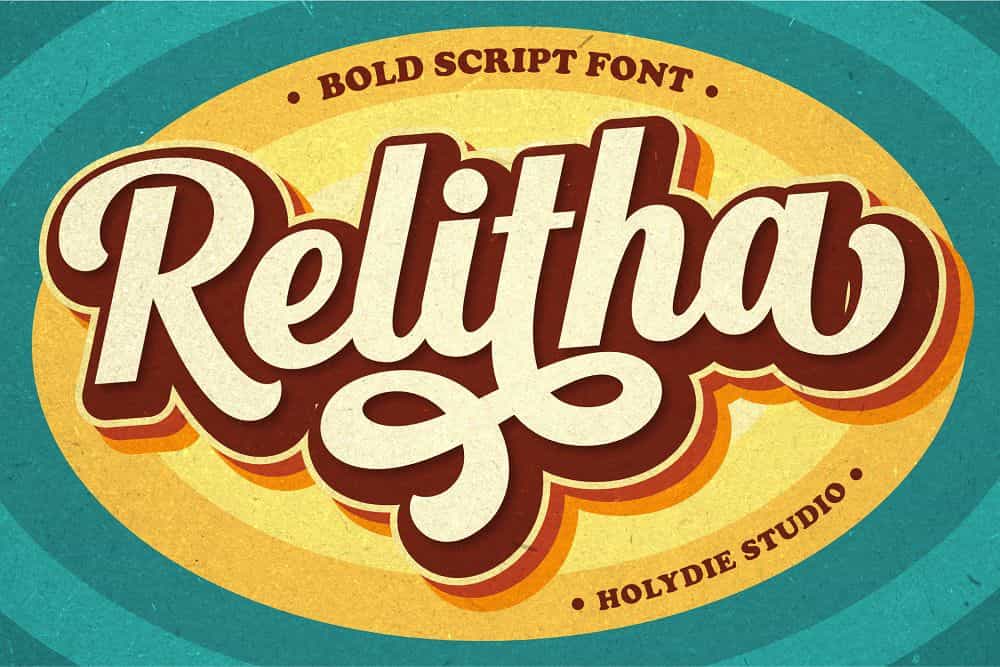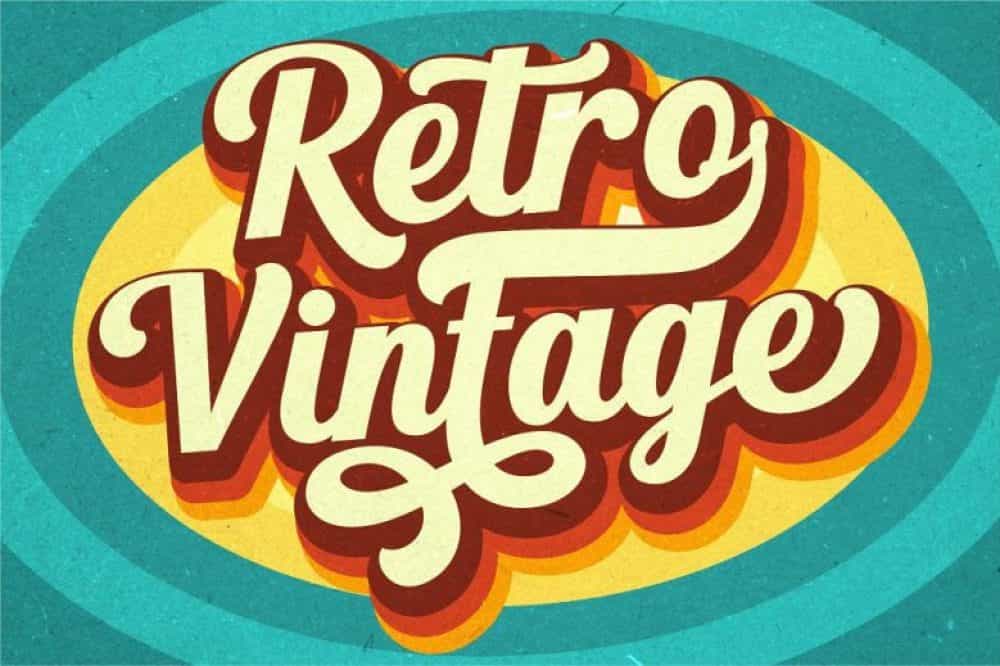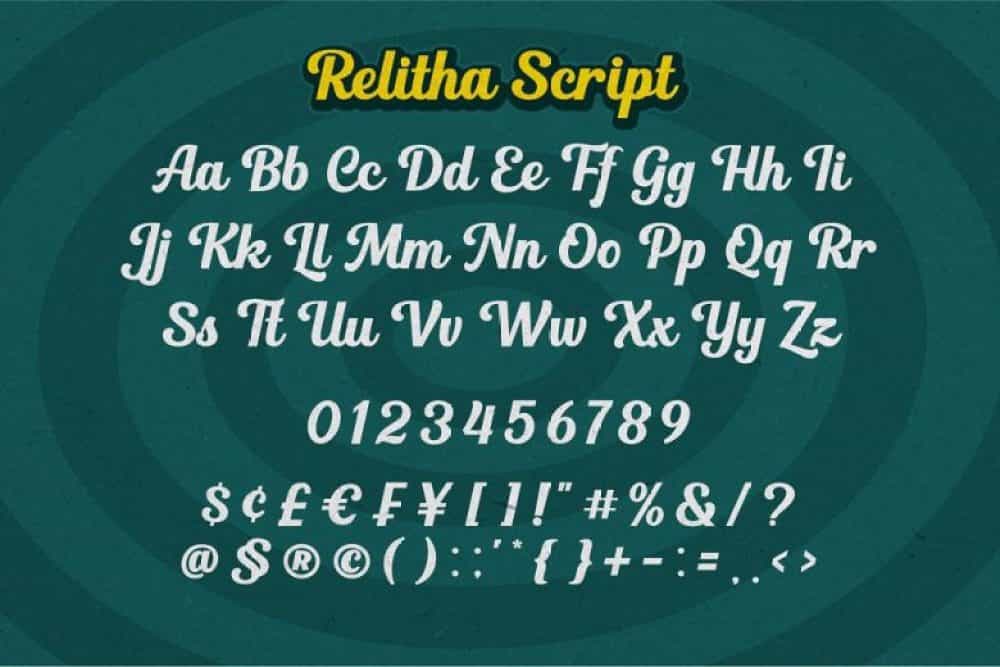
Relitha is a vintage retro font with the inspiration of retro typography and lettering between the 70s and 80s with added bold typography. This font is ideal for rock, hippie and psychedelic style projects, badges, logos, T-shirts, prints, posters, branding, packaging, signs, book covers and many more.